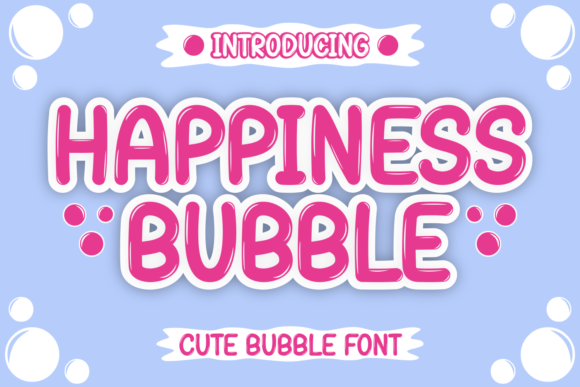
Introducing Happiness Bubble Font, the ultimate font for Vogue Magazine enthusiasts and anyone seeking a touch of elegance and charm in their designs. Created by the talented Rydmaker from 7NTypes, this cool and trendy display font is here to elevate your creative projects to new heights.
With its captivating and refreshing look, Happiness Bubble Font is the perfect choice for those who crave uniqueness and style. Its sleek and modern design will effortlessly catch the eye of your audience, leaving them mesmerized by the sheer beauty of your creations.
Imagine flipping through the pages of Vogue Magazine, and suddenly, a font captures your attention, adding a touch of magic to the content. That's exactly what Happiness Bubble Font aims to do. It effortlessly blends in with the high-fashion world, making your designs stand out from the crowd.
Not only does Happiness Bubble Font exude elegance, but it also offers versatility. Its display font family allows you to experiment with various styles, ensuring that your designs are always on-point and tailored to your vision. Whether you're working on logos, brand identities, editorial layouts, or social media graphics, this font is your ultimate companion.
This font's uniqueness lies in its ability to evoke emotions. Each letter is carefully crafted to exude joy, happiness, and a sense of playfulness. Happiness Bubble Font captures the essence of celebration and adds a sprinkle of magic to your designs, making them truly unforgettable.